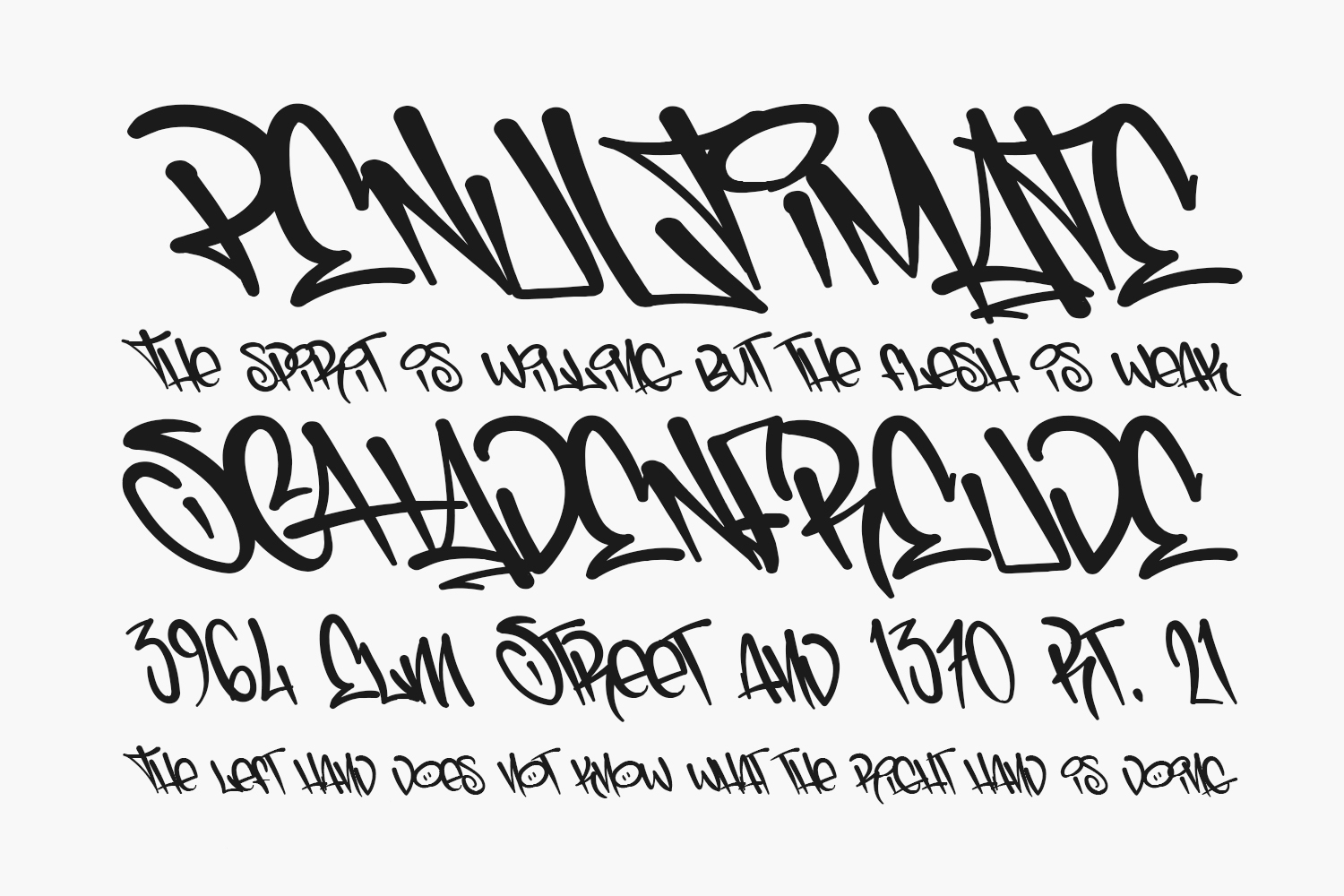
Schoolin Free Font is a cool, graffiti looking display font. Add this font to each of your casual design ideas and they will look amazing. Schoolin Free Font was designed by Semuthitam and is free for personal use only. Please purchase the full version for commercial use.